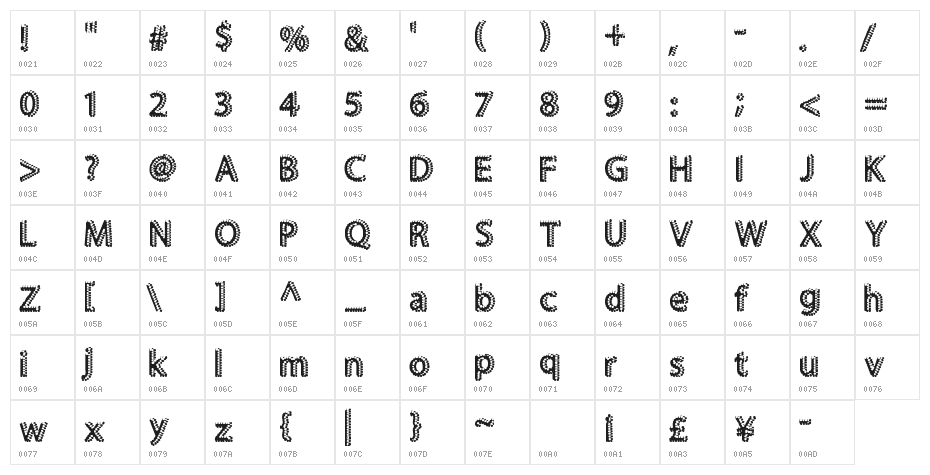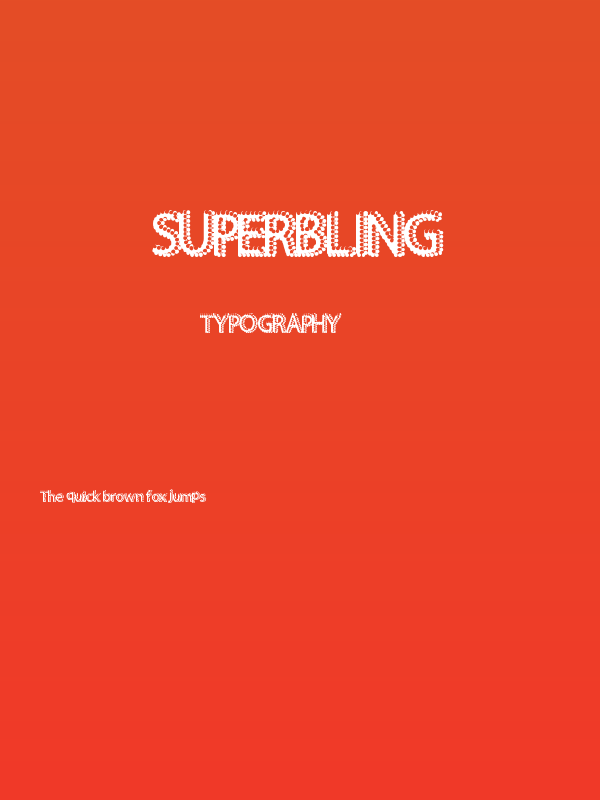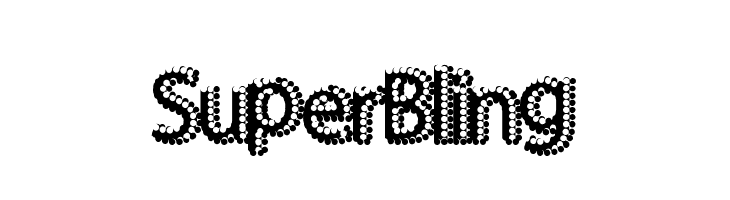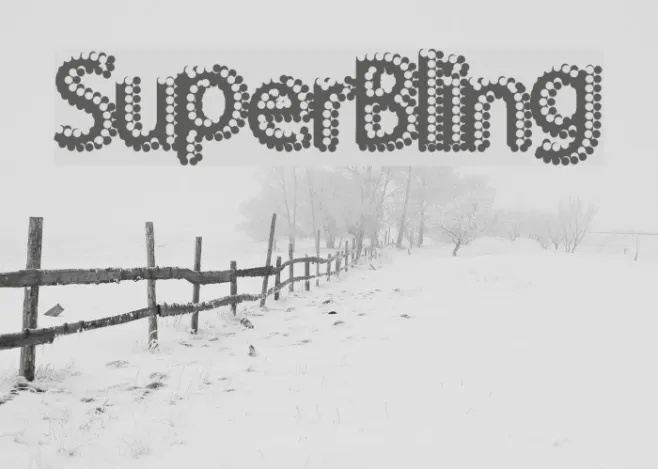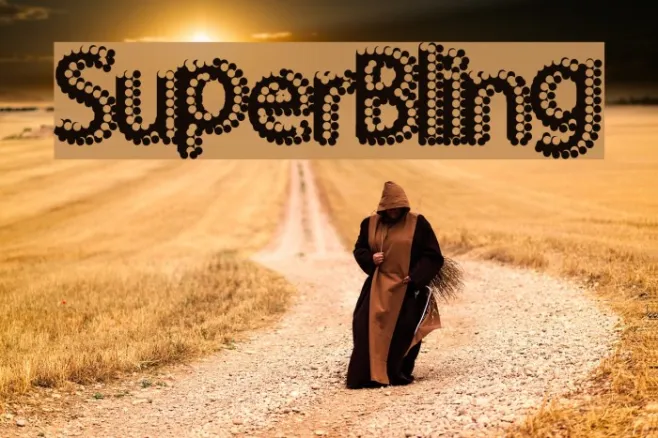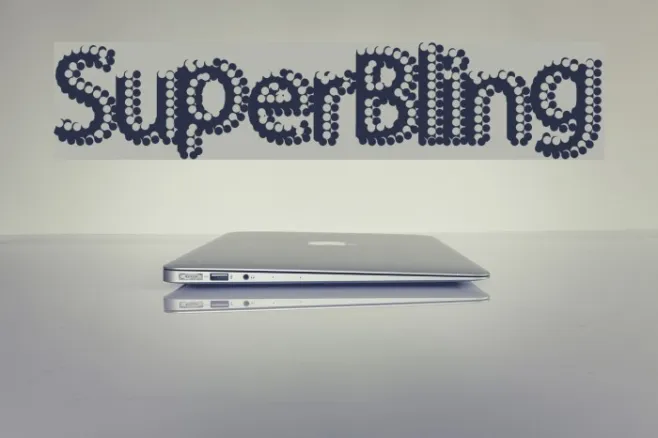
SuperBling Font
SuperBling Description
This font features a unique and eye-catching design composed of circular, gem-like elements that form each character. The letters are bold and decorative, with a playful and luxurious feel, making them stand out in any design. The uppercase and lowercase letters maintain a consistent style, with numbers and special characters following the same ornate pattern. The font's distinct style is reminiscent of jewelry or sequins, adding a touch of glamour and sophistication to any project.
SUPERBLING UPPERCASE
SUPERBLING LOWERCASE
SUPERBLING OTHER CHARS